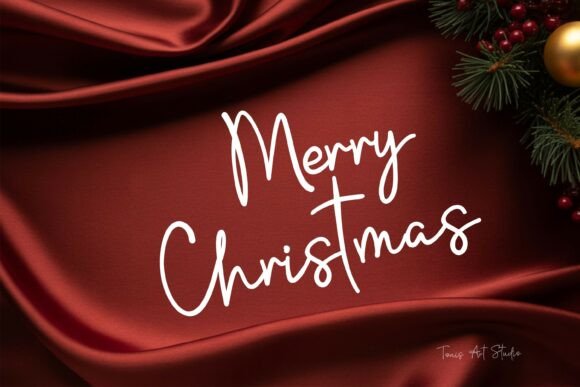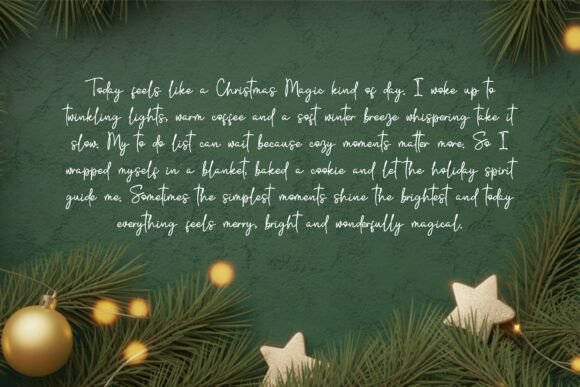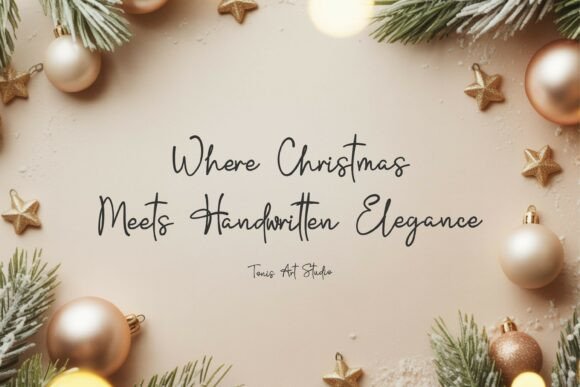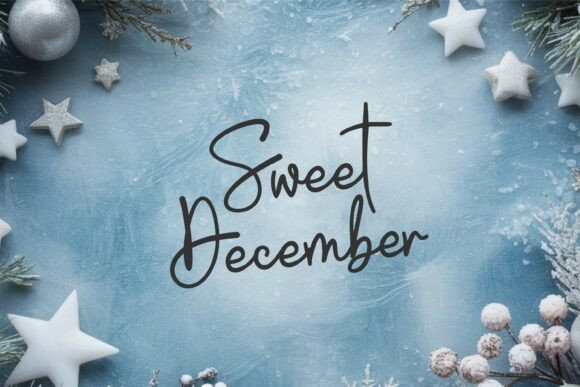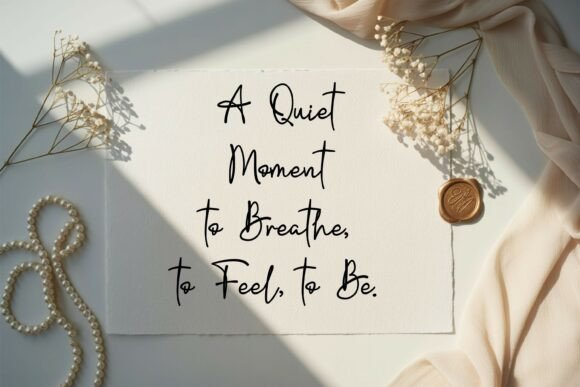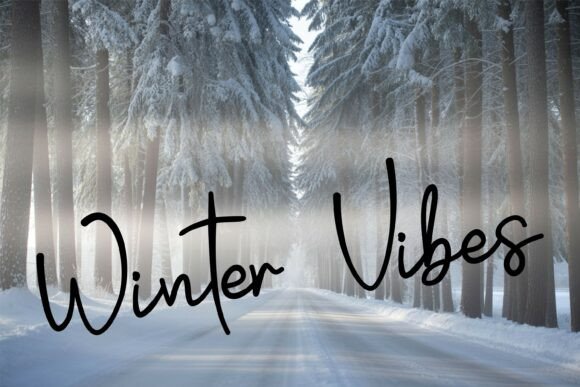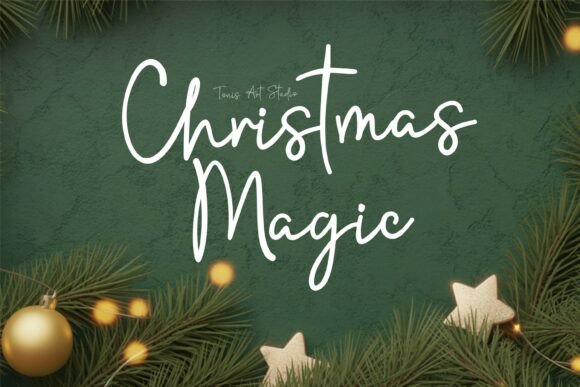
Introducing Christmas Magic Font: The Perfect Blend of Festive Cheer and Timeless Elegance
Are you looking for a font that captures the essence of the holiday season? Do you want to add a touch of magic to your Christmas cards, holiday quotes, and winter stationery? Look no further than Christmas Magic Font, an elegant handwritten script font designed to bring warmth, grace, and seasonal charm to every creative project.
The Characteristics of Christmas Magic Font
Christmas Magic Font boasts soft flowing strokes, tall letterforms, and a natural handwritten rhythm, delivering a perfect balance of festive cheer and timeless elegance. Its refined handwritten style makes it ideal for a wide range of applications, from winter stationery and Christmas cards to wedding design and cozy printable décor.
Uses for Christmas Magic Font
Christmas Magic Font is incredibly versatile and can be used for a variety of projects, including:
- Winter stationery and Christmas cards
- Holiday quotes and festive decorations
- Mugs, shirts, tags, ornaments, and planners
- Cozy printable décor for your home
- Wedding design, including bridal letters, vow books, save-the-date cards, invitations, thank-you notes, place cards, menus, and romantic gifts
Why Choose Christmas Magic Font?
So, why choose Christmas Magic Font over other fonts? Here are just a few reasons:
- Elegant and Refined: Christmas Magic Font has a sophisticated and elegant feel, making it perfect for wedding design and other special occasions.
- Festive and Fun: The font’s playful and festive vibe also makes it ideal for Christmas and holiday-themed projects.
- High-Quality: The font includes full A–Z characters, numbers, punctuation, and professionally smoothed strokes for flawless cutting and printing.
Tips for Using Christmas Magic Font
Here are a few tips for getting the most out of Christmas Magic Font:
- Experiment with Sizes and Colors: Try out different font sizes and colors to add visual interest to your designs.
- Pair with Other Fonts: Combine Christmas Magic Font with other fonts to create unique and eye-catching designs.
- Use for Digital and Print Projects: Christmas Magic Font is perfect for both digital and print projects, from social media graphics to physical decorations.
Christmas Magic Font is the perfect addition to any designer’s toolkit. With its elegant and refined style, festive and fun vibe, and ease of use, this font is sure to bring a touch of magic to every project. Whether you’re creating Christmas cards, wedding invitations, or cozy printable décor, Christmas Magic Font is the perfect choice.